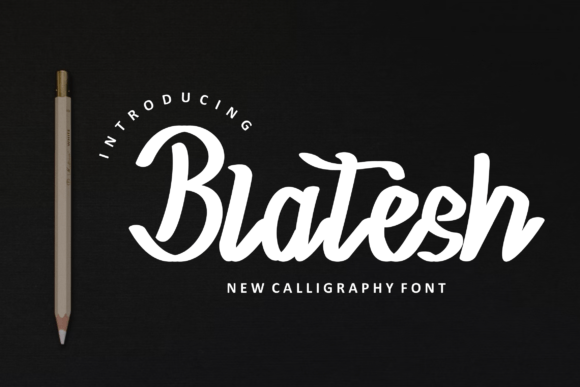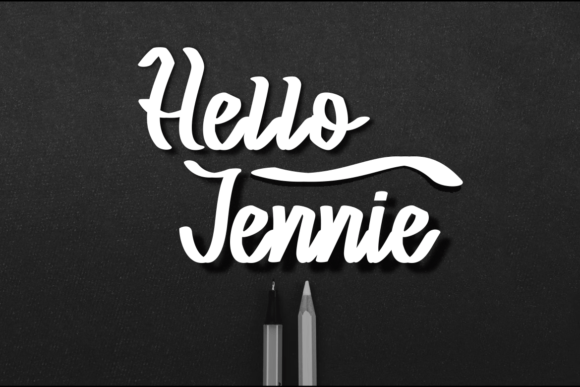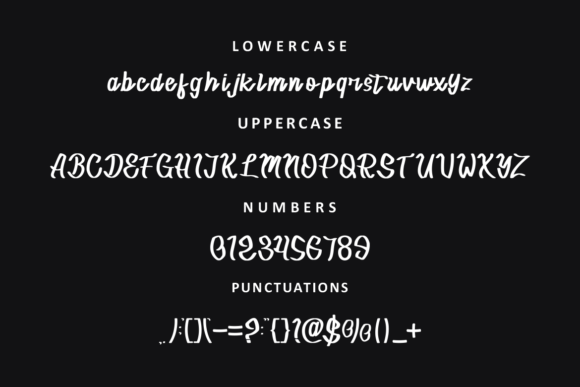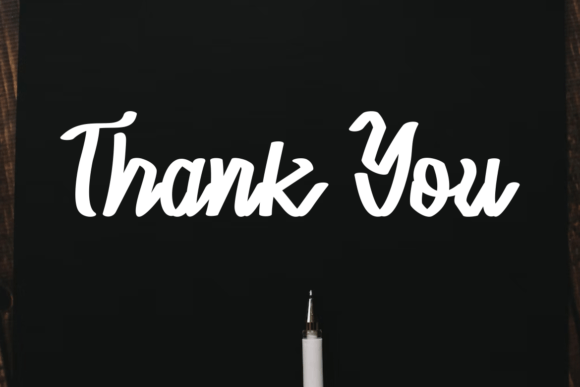
Blatesh Font
Introducing Blatesh Font
The Blatesh Font is a unique handwritten typeface known for its beautiful, classy, elegant, and modern feel. This font is a versatile choice, perfectly suited for a wide variety of design projects across different creative fields. Its charm lies in its ability to convey a sense of beauty, class, elegance, and modernity with a unique and distinctive touch.
Why Choose This Typeface?
• Elegant and Modern: Blatesh adds sophistication to your designs, making it suitable for signatures, stationery, logos, wedding materials, typography quotes, magazine or book covers, website headers, clothing, branding, packaging design, and more.
• Versatile Usage: This font provides a visually appealing choice for various creative endeavors, allowing you to infuse your designs with sophistication and contemporary style while maintaining its unique character.
Applications of Blatesh
• Signatures: Use this font to create elegant signatures that capture attention.
• Branding: Enhance your brand identity with a script style that conveys modern elegance.
• Invitations: Perfect for adding a stylish script aesthetic to invitations and other creative projects.
The Impact of Using Blatesh
This font elevates your designs by making them visually captivating and memorable. It becomes a reliable tool for designers seeking to create projects that stand out with elegance. Its balanced form ensures your designs are both refined and captivating.
The Value It Brings
This typeface excels in combining contemporary design aesthetics with classic elegance. By choosing Blatesh, you ensure your designs are not only visually appealing but also sophisticated and unique.
This font is also ideal for various creative projects beyond traditional uses. It can enhance digital designs with its elegant flair, making it suitable for websites, brochures, or mobile interfaces. The Blatesh Font adapts well to different screen sizes while maintaining its charm. As design trends evolve, this font remains relevant due to its timeless appeal, balancing style with functionality effectively.